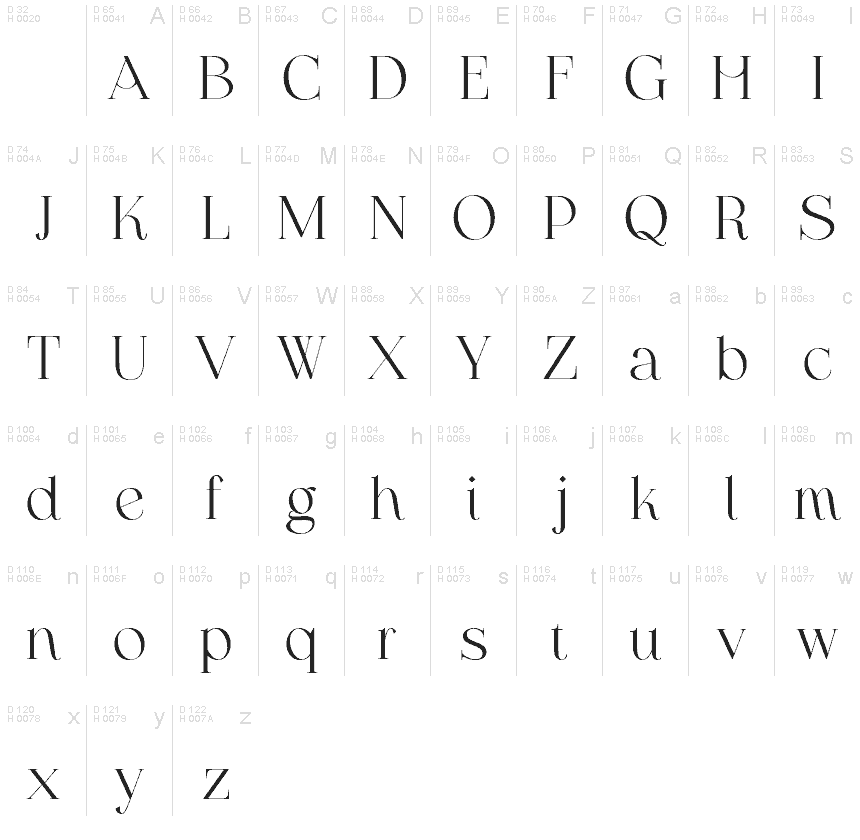
Raena Demo Regular
Raena font by Craft Supply Co is a gorgeous choice and option for those creatives who need an elegant vibe in their art. This light serif typeface has all the letters at a tall height with thin lines forming each character’s anatomy. A sophisticated modern aura can be seen emitted which combines with its refined appearance.
Applications for this free serif font vary from advertising to branding, posters to digital banners, books to magazine covers, packaging to labels, invitations to business cards, and other print/digital projects.